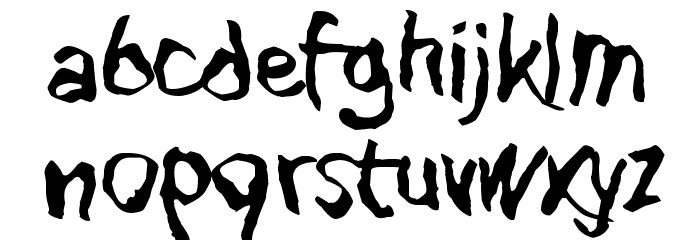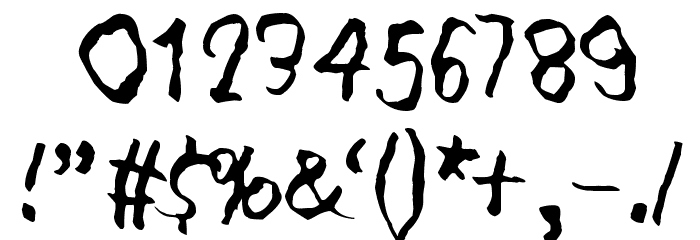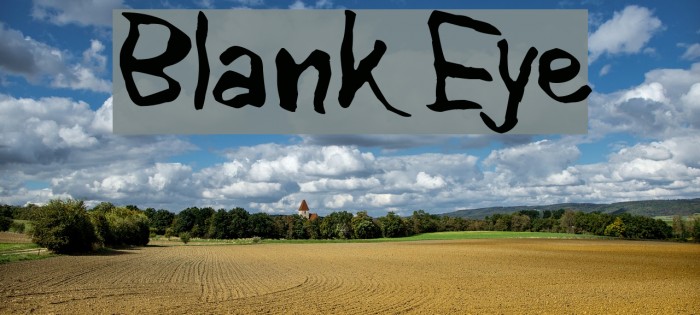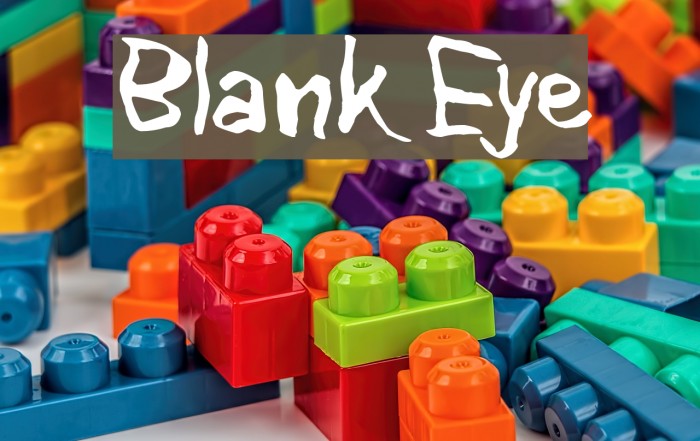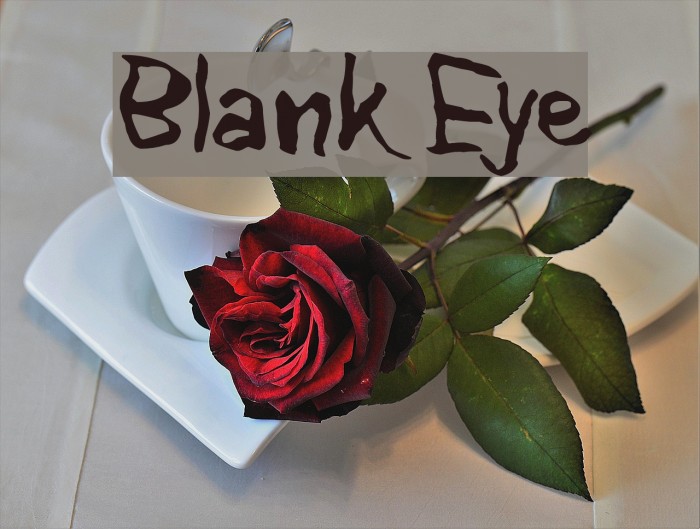
Blank Eye Font
This font features a bold and expressive style with a hand-drawn appearance. The characters are irregular and dynamic, giving a sense of movement and energy. The strokes are thick and uneven, contributing to a raw and artistic feel. The uppercase and lowercase letters maintain a consistent style, with a slightly chaotic yet intentional design. The numbers and special characters follow the same aesthetic, ensuring a cohesive look across all elements. This font is ideal for projects that require a bold statement or an artistic touch.
A bold, hand-drawn font with an expressive and artistic style.
- Proposed Projects: Ideal for album covers, posters, artistic branding, and creative projects requiring a bold statement.
- Use Case: Logos, Posters, Artistic Branding